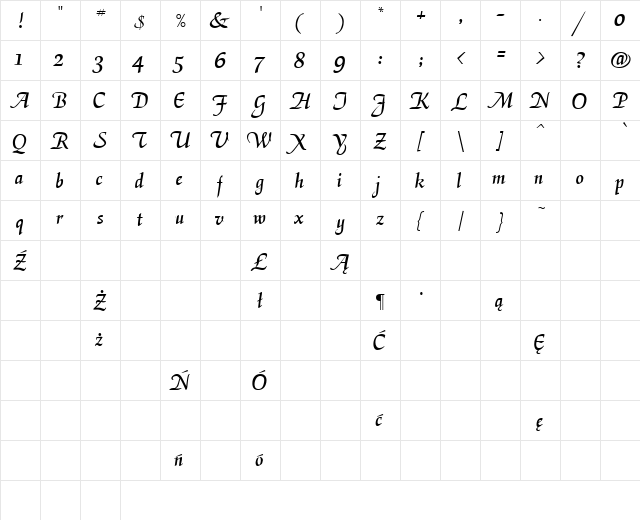
Dekorator StO Regular
Design Context for Dekorator StO Typeface
Dekorator StO is a composed and adaptable typeface that performs quietly and consistently across a wide range of design contexts.